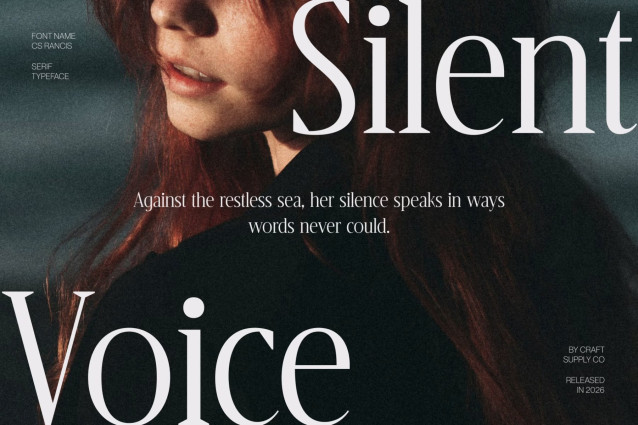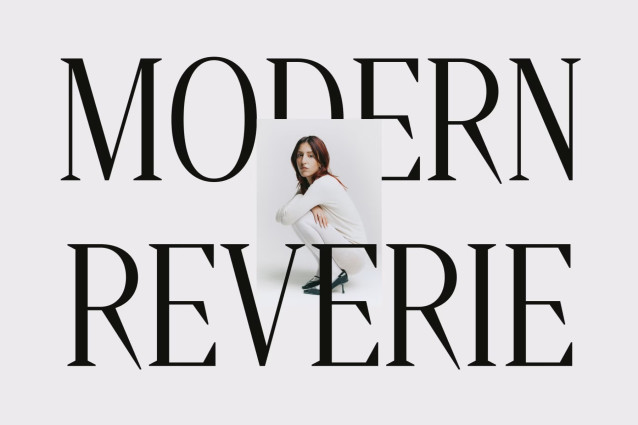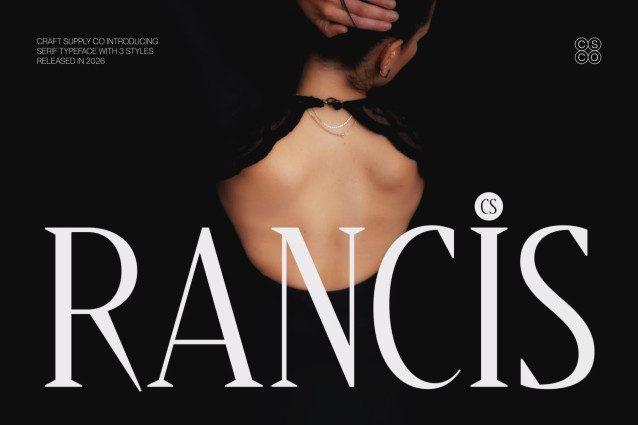
CS Rancis – Modern Serif Font
CS Rancis – Modern High-Contrast Display Serif: Where Editorial Grace Meets Timeless Luxury
Tall Proportions with Graceful Wedge Serifs
This is a modern high-contrast display serif designed to express sophistication through tall, elegant proportions and refined wedge serifs. Its graceful letterforms and dramatic contrast between thick and thin strokes create a striking visual rhythm that feels both delicate and confident. Every character is carefully crafted to deliver a premium, polished appearance.
Editorial-Inspired Style with Luxurious Appeal
Inspired by the refined aesthetics of contemporary fashion editorials, this font combines timeless serif elegance with modern precision. Its balanced proportions and clean detailing create typography that feels luxurious, stylish, and effortlessly sophisticated, making it an excellent choice for high-end creative applications.
Timeless Typography for Premium Branding
This font creates a distinctive visual identity that transcends trends. Its refined structure communicates prestige and exclusivity while maintaining excellent readability in display settings. The result is typography that feels elegant, memorable, and perfectly suited for luxury-focused design.